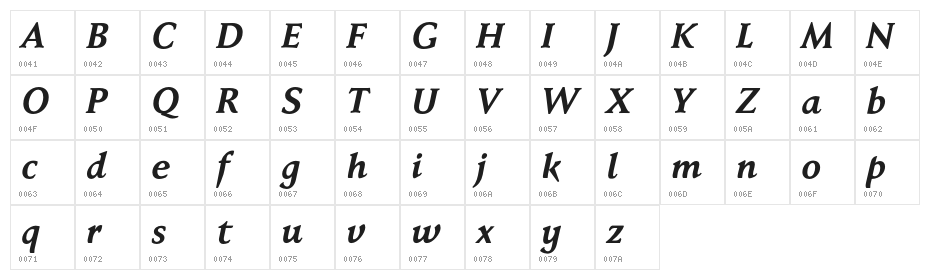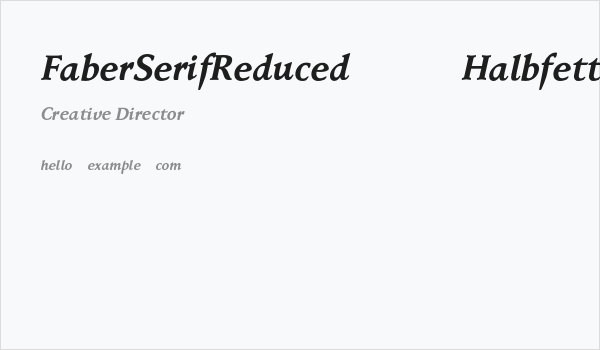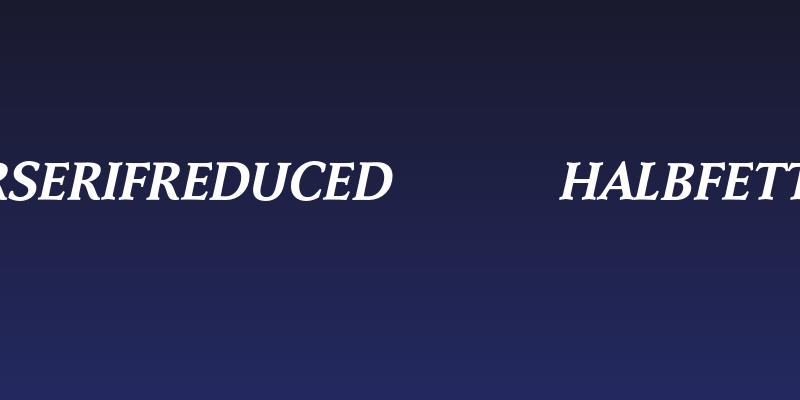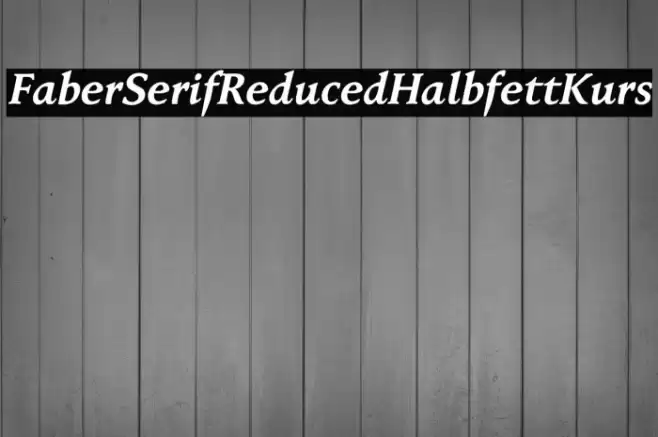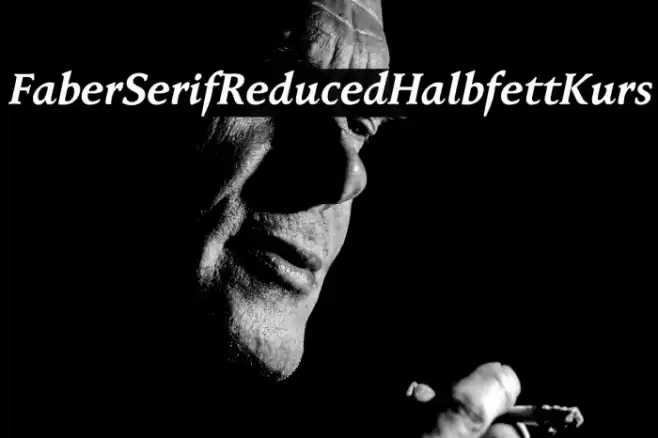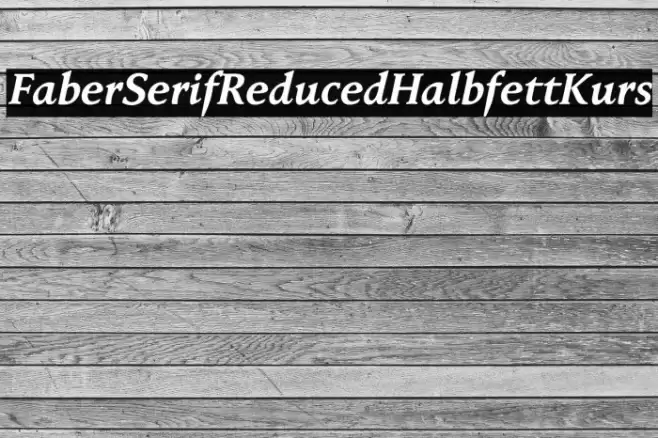
FaberSerifReduced-76HalbfettKurs Font
FaberSerifReduced-76HalbfettKurs Description
This font features a classic serif style with a strong emphasis on elegance and readability. The characters have a slightly condensed appearance, giving them a refined and sophisticated look. The serifs are pronounced, adding a touch of tradition and formality. The italic style is evident, providing a dynamic and flowing feel to the text. The stroke contrast is medium, balancing between thick and thin lines, which enhances legibility while maintaining an artistic flair. This font is suitable for projects that require a touch of class and professionalism.
| Width | Condensed |
| Overall Style | Classic |
| Use Case | Headlines, Body text, Logos |
| Proposed Projects | Ideal for editorial design, book covers, formal invitations, and branding that requires a classic touch. |